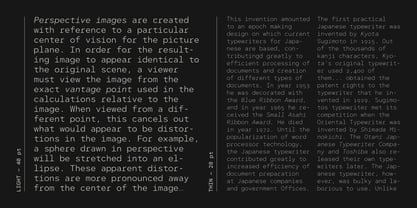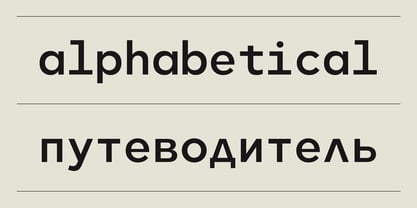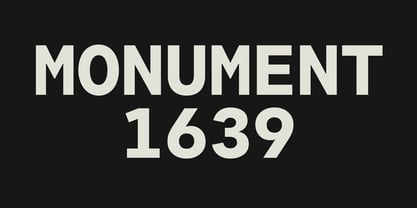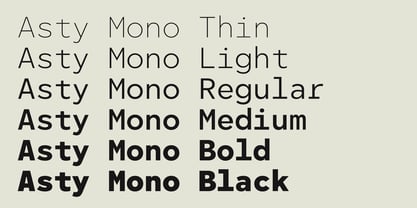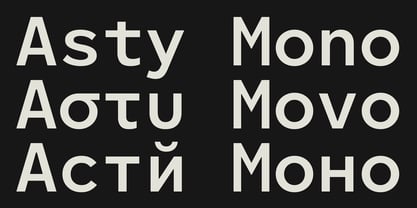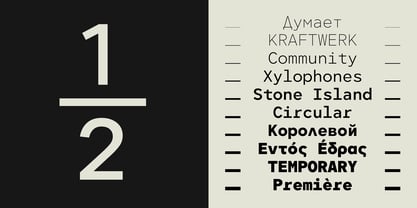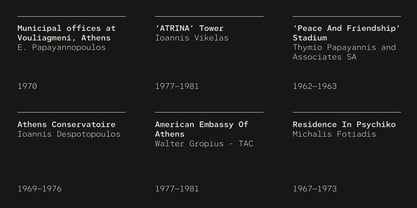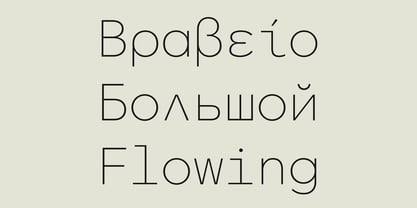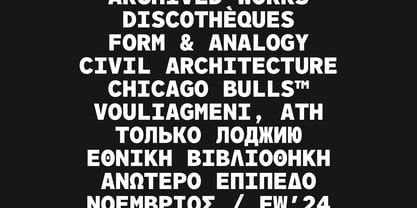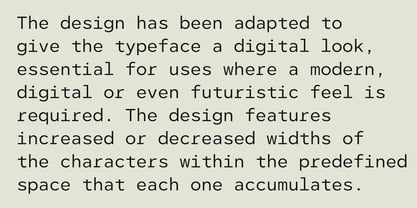
CF Asty Monospaced
by Fonts.GR
The CF Asty Monospaced Font Family was designed by Panos Haratzopoulos and published by Fonts.GR. CF Asty Monospaced contains 13 styles and family package options. More about this family
CF Asty, now available in a monospaced version. The design has been adapted to lend it a digital aesthetic, essential for uses requiring a modern, digital, or even futuristic feel. At the same time, by appropriately varying the width of each character within its predefined space, gaps and counterforms resulting from the lack of kerning are reduced, in order to improve readability in longer texts. CF Asty Mono supports Greek, Western, Extended Latin, and Cyrillic character sets.
Designers: Panos Haratzopoulos
Foundry: Fonts.GR